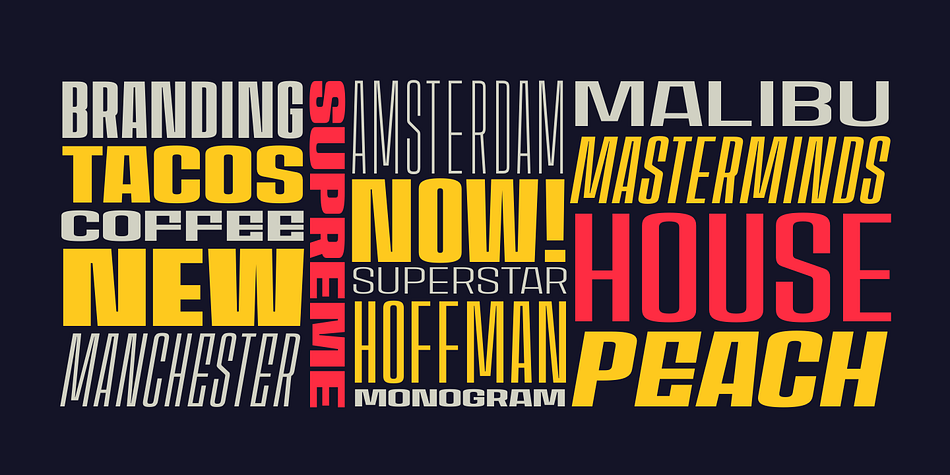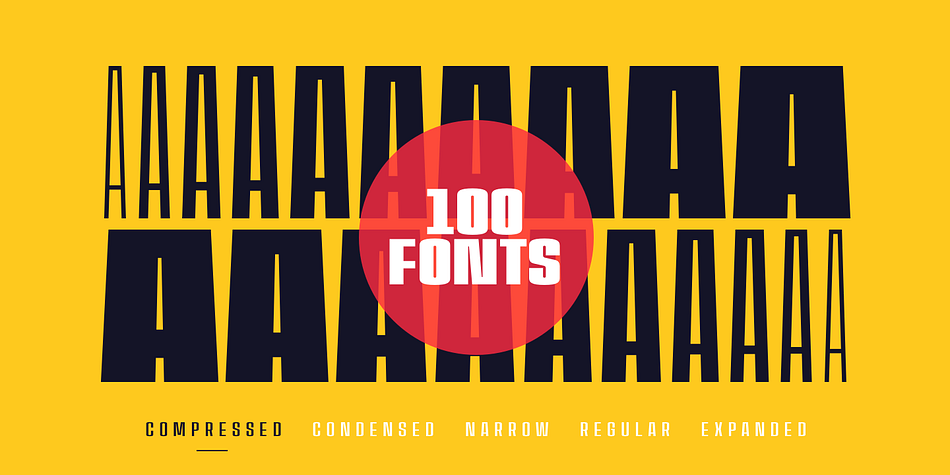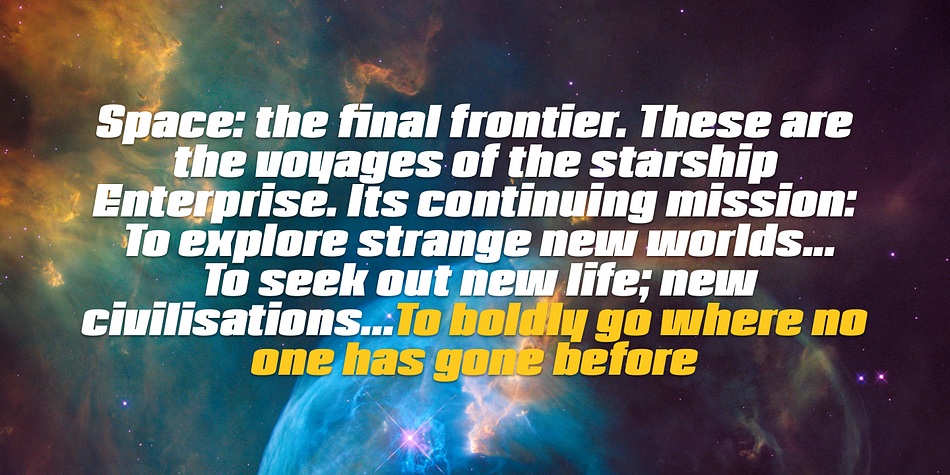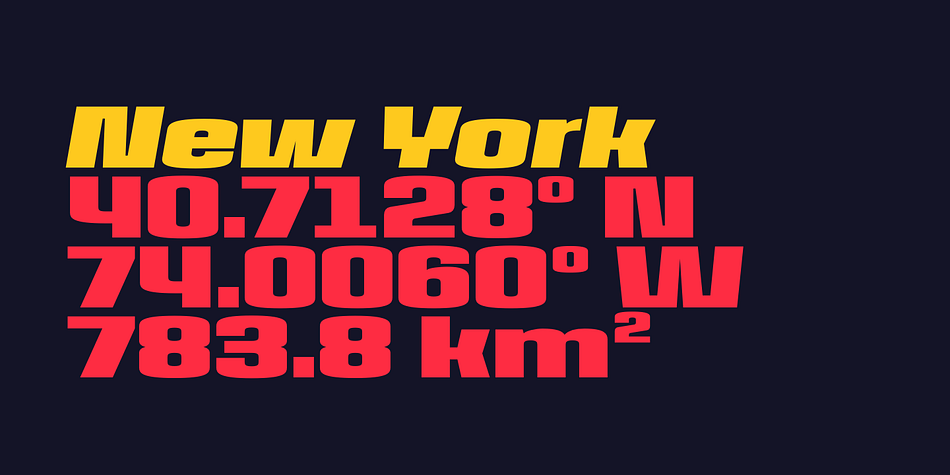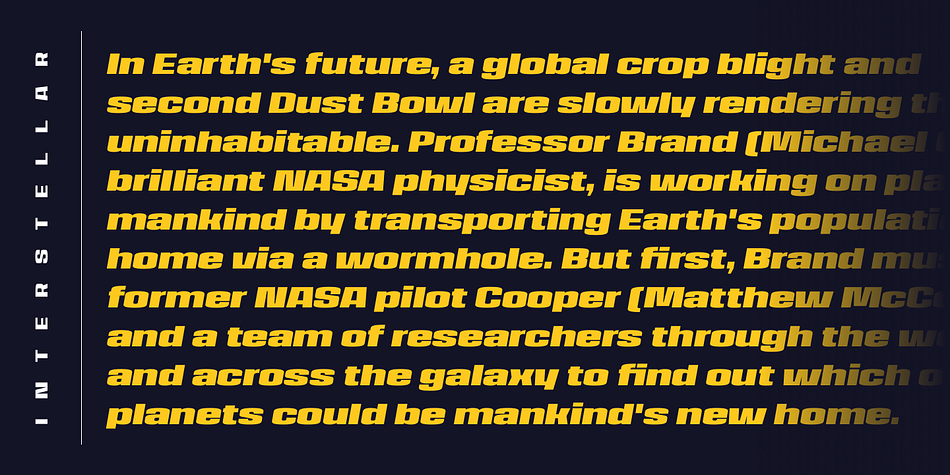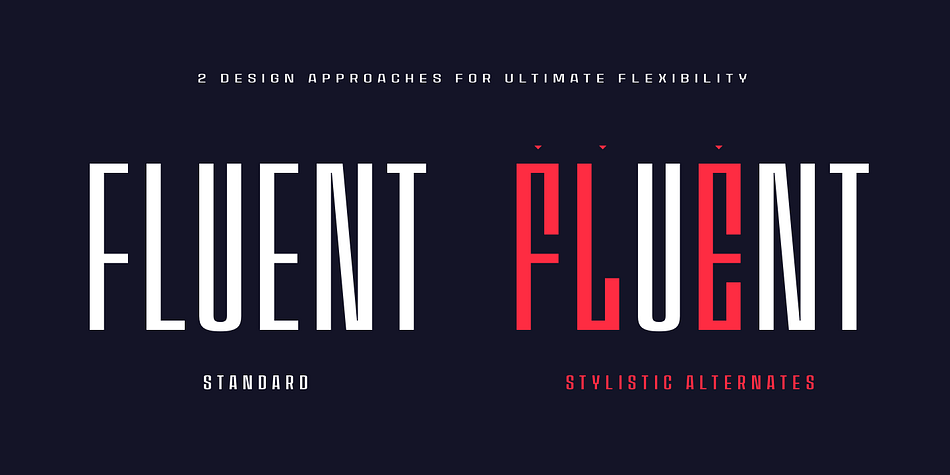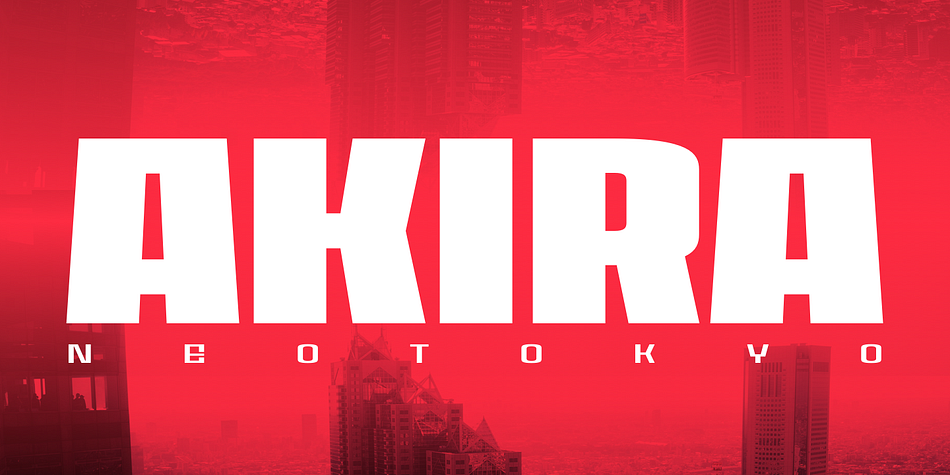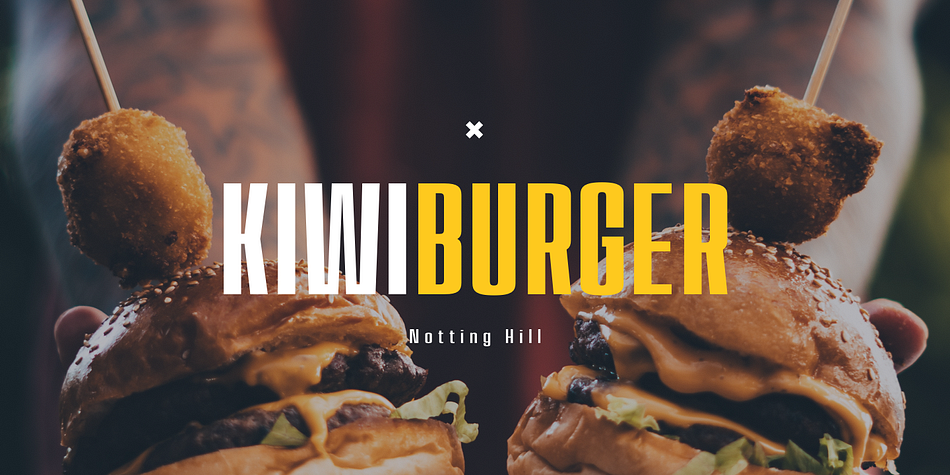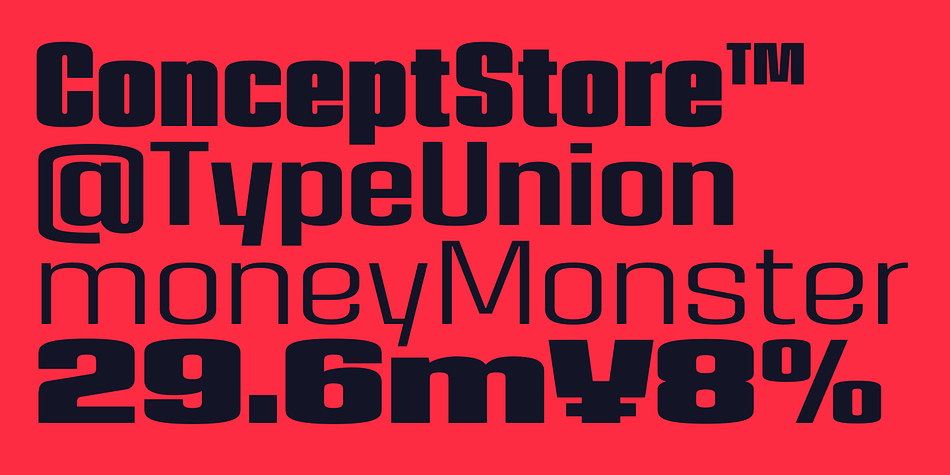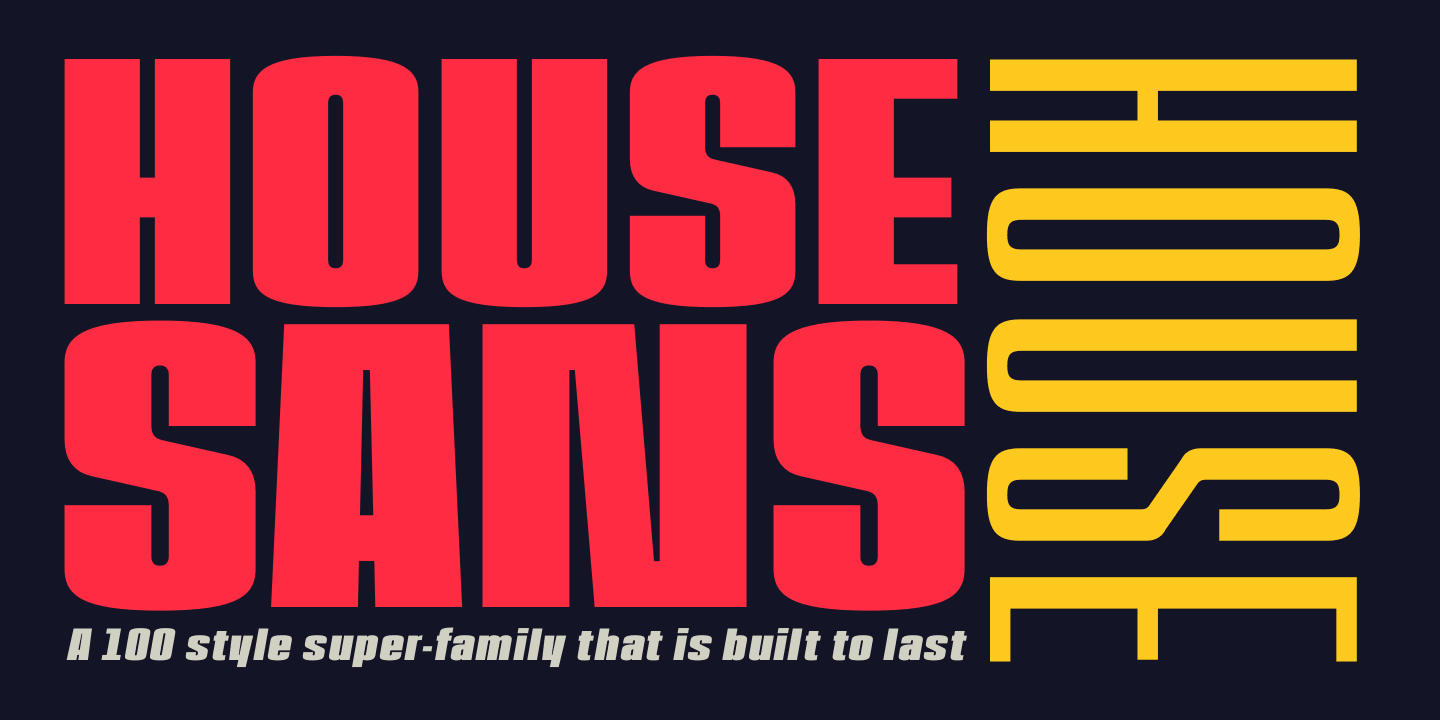
Designed by Dan Jones, House Sans is a sans serif font family. This typeface has one hundred styles and was published by TypeUnion.
House Sans is a 100 style super-family made up of 5 widths, 10 weights plus matching italics in two design approaches through stylistic alternates to the E, F, L and e characters. The weights range from compressed to expanded, from thin to heavy creating a plethora of styles to create with.
House Sans has a unique visual structure to key glyphs such as the A, M & Y that give the font a stand out feel while the contrasting horizontal bars provide a nice balance. The compressed weights are great for fitting in tight spaces whilst the Heavy styles are perfect for standing out from the crowd.
The font features extensive support for European and Cyrillic languages, stylistic and discretionary ligatures, plus superiors, inferiors and fractions.